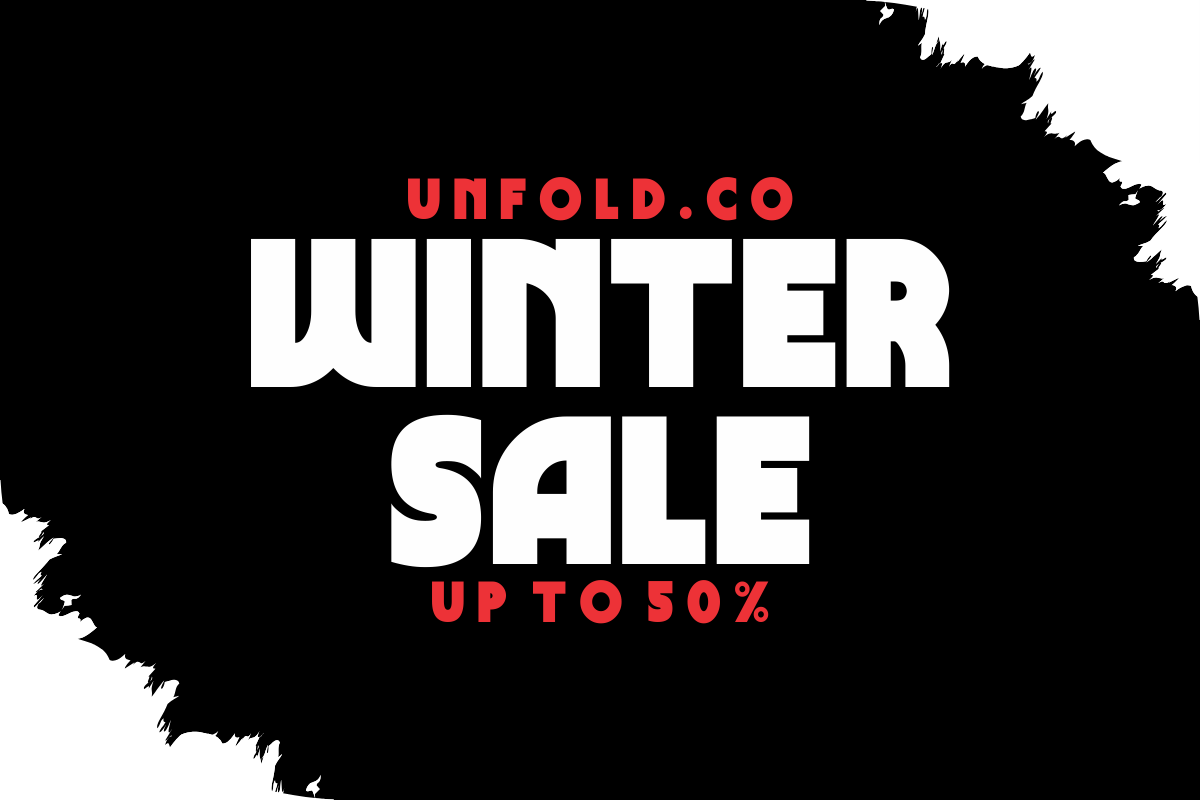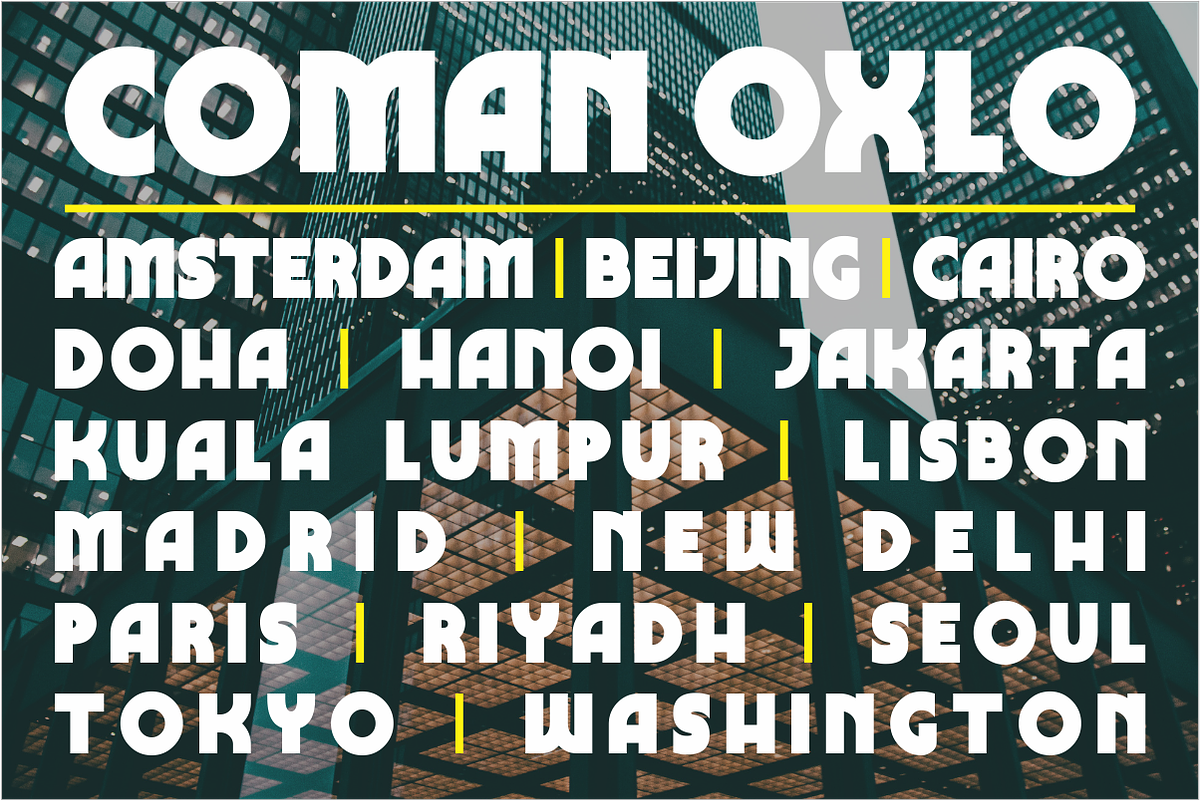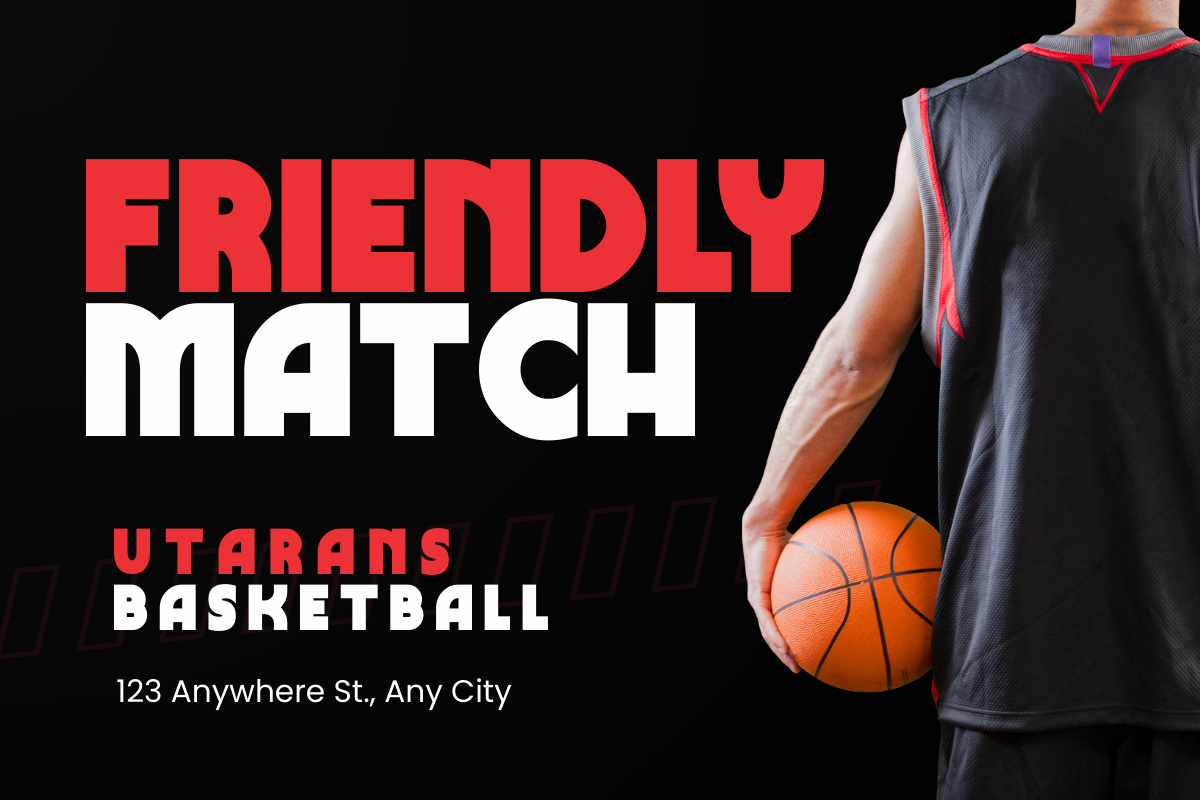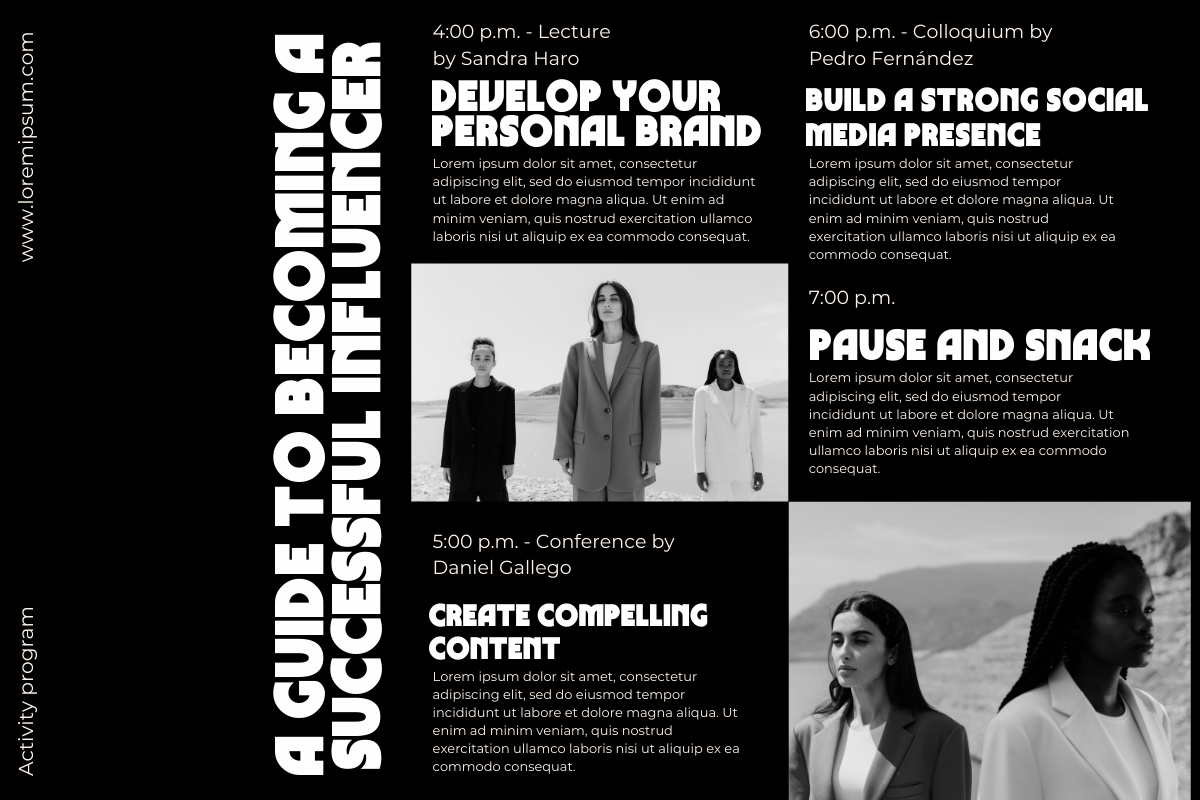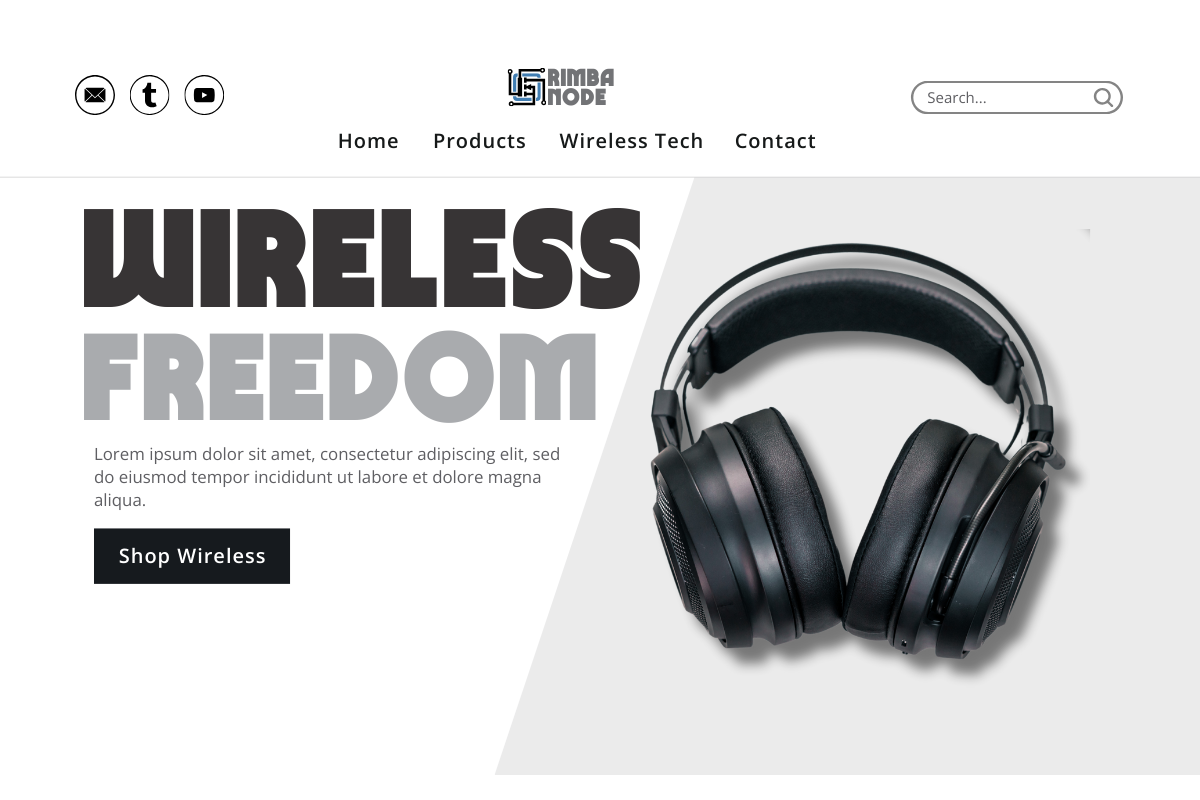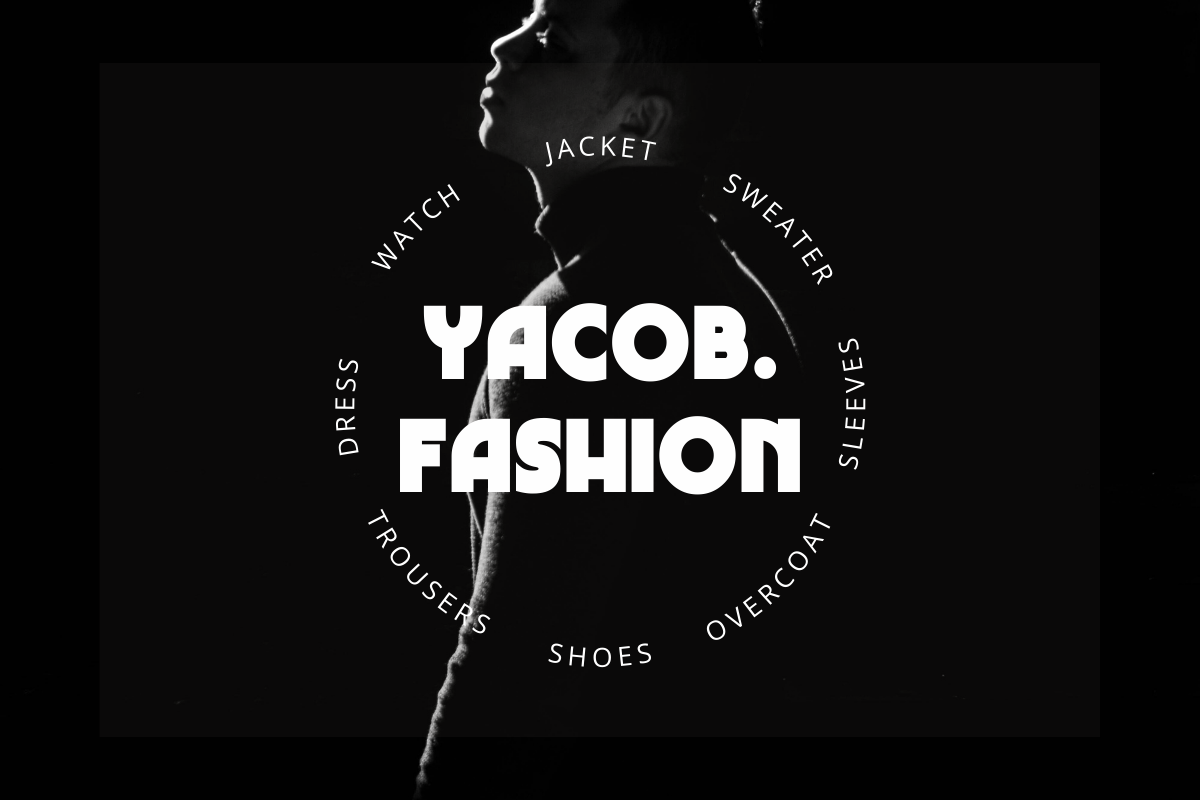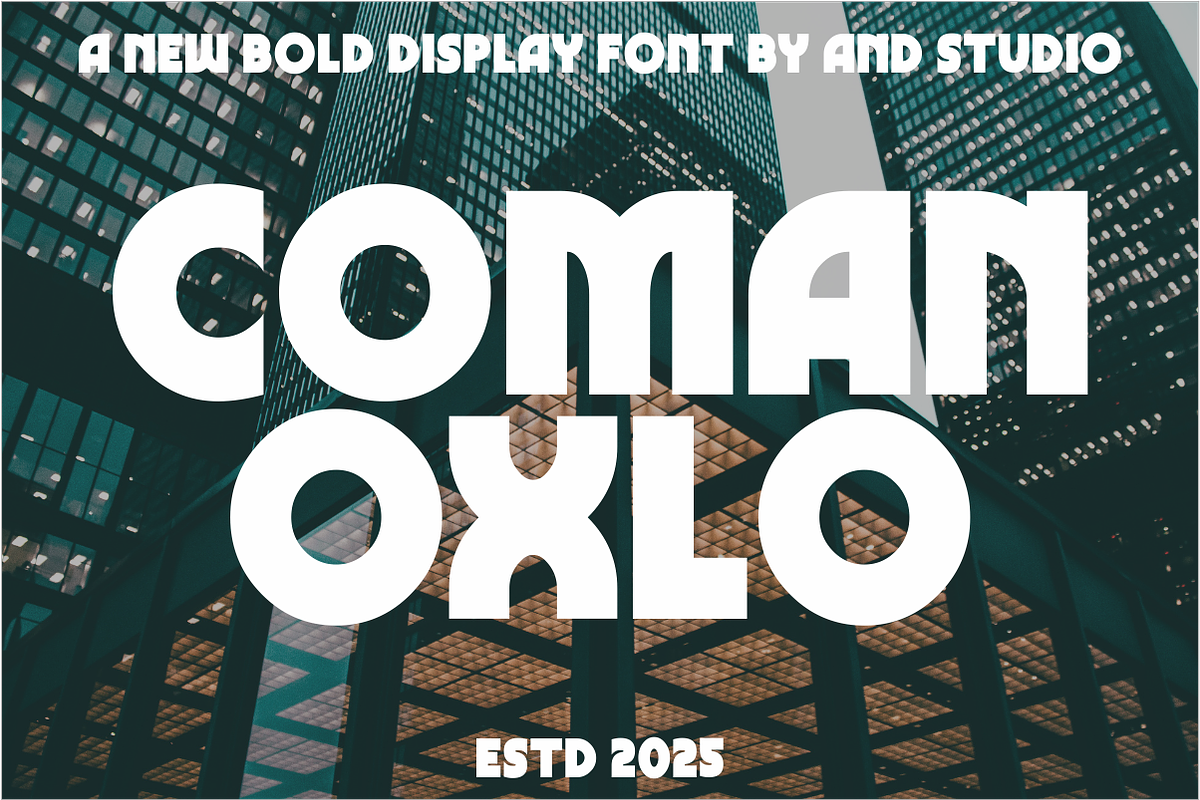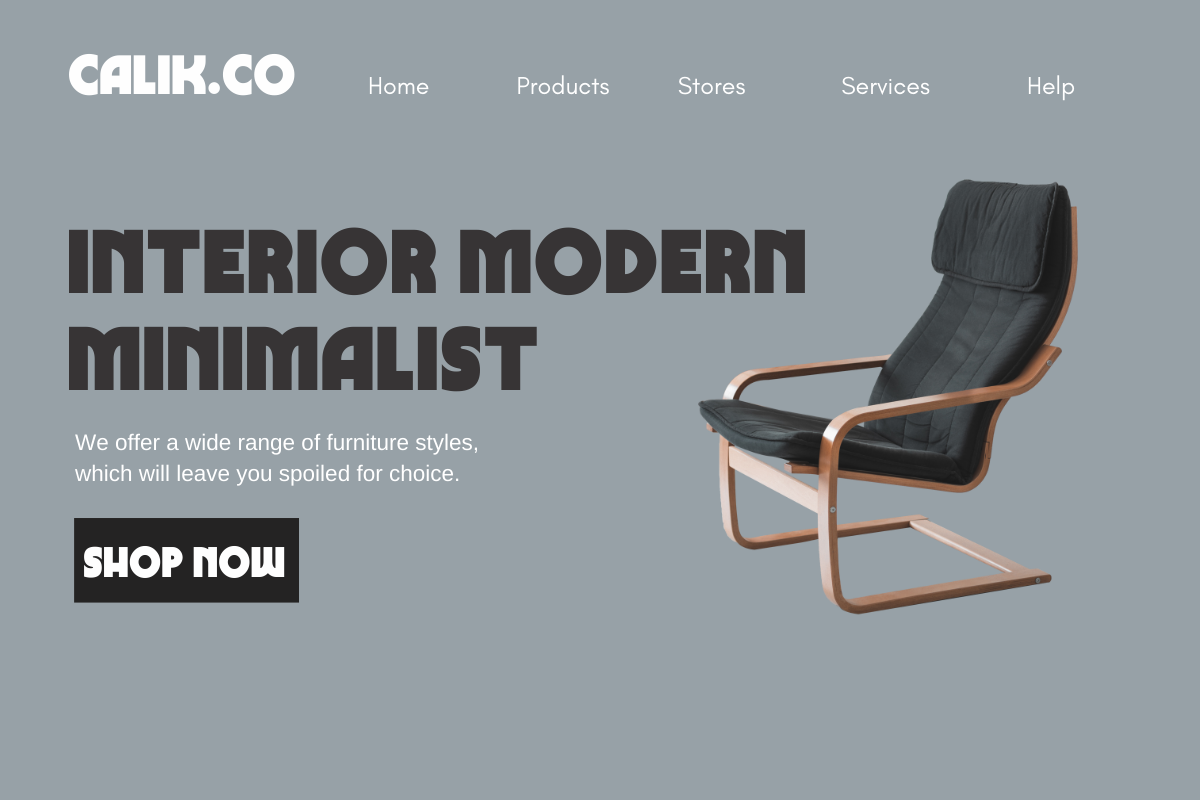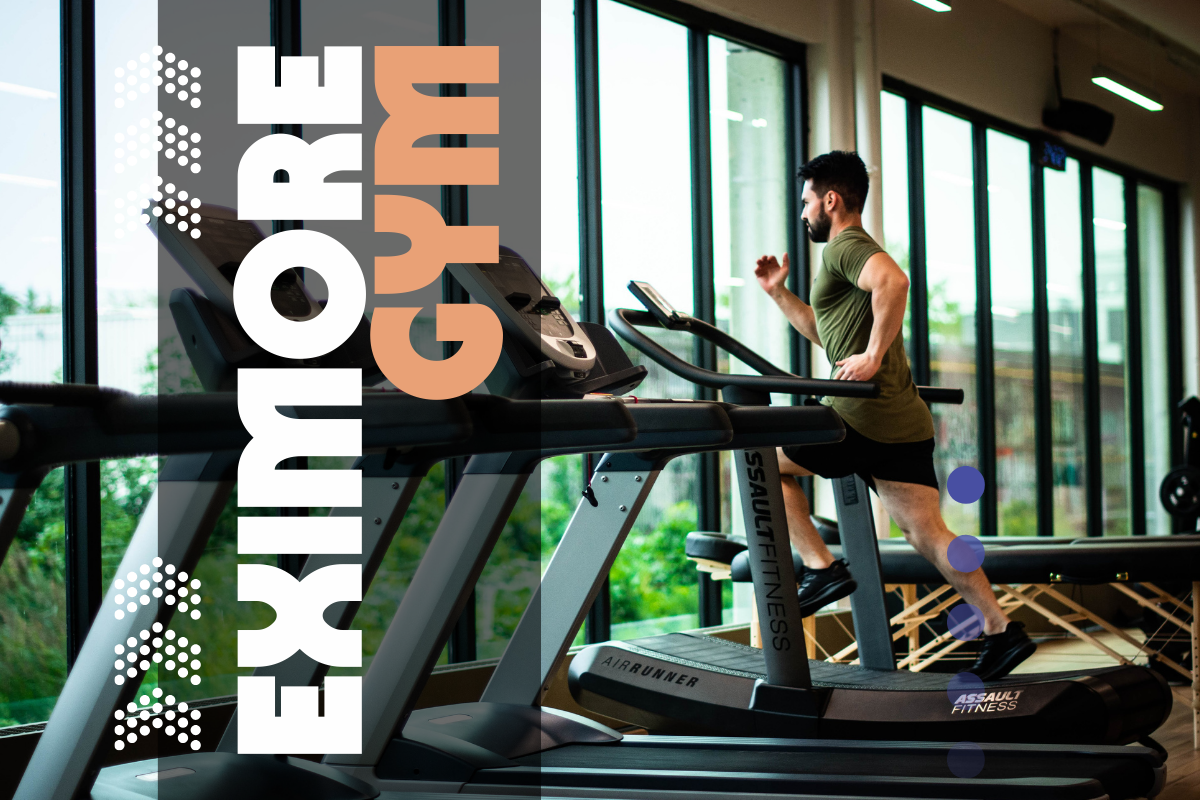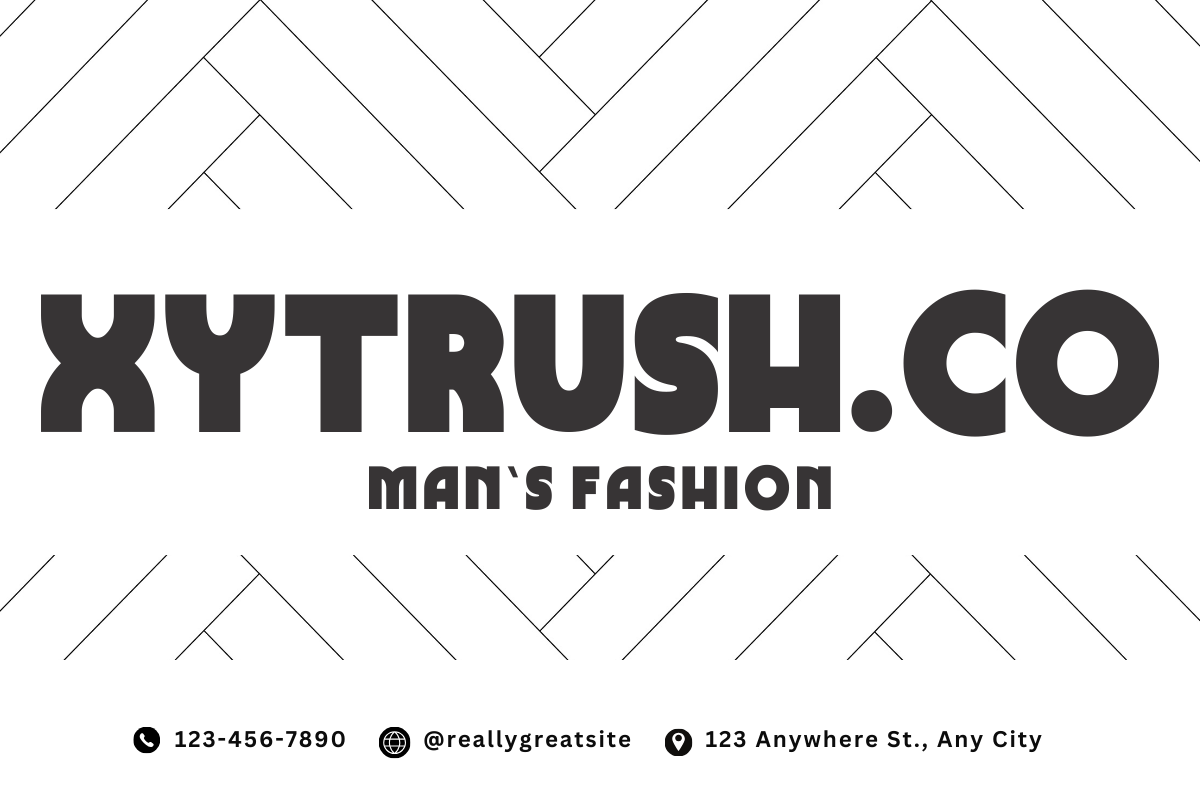
COMAN OXLO
"Coman Oxlo" is a strong and versatile font that blends retro and modern aesthetics. With its bold geometric letterforms and rounded edges, this typeface delivers a striking yet balanced look. It is perfect for branding, advertising, logos, and eye-catching designs.
Inspired by vintage typography, "Coman Oxlo" is designed for optimal readability and high visual appeal. Its flexibility makes it suitable for a wide range of projects, from contemporary to retro designs. The dominant character of this font makes it an ideal choice for marketing, event promotions, and creative branding.
If you’re looking for a bold, elegant, and timeless typeface, "Coman Oxlo" is the perfect choice to make your designs stand out.